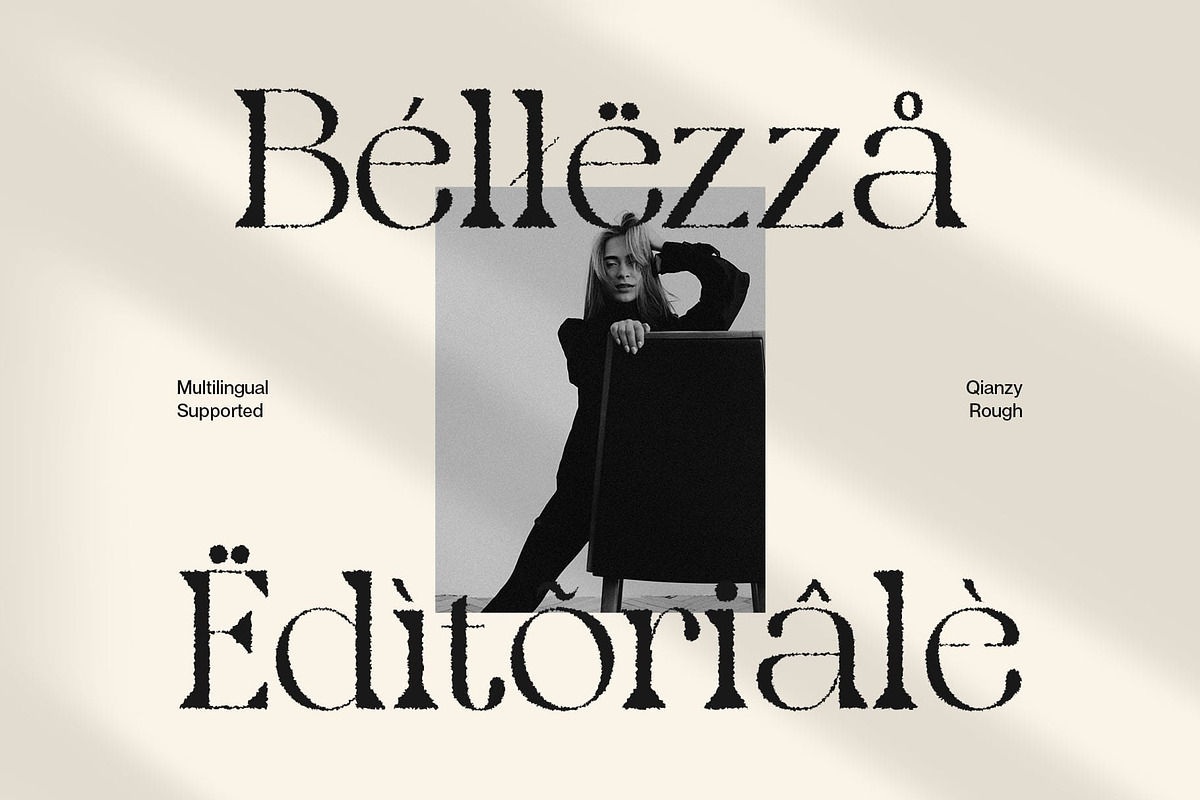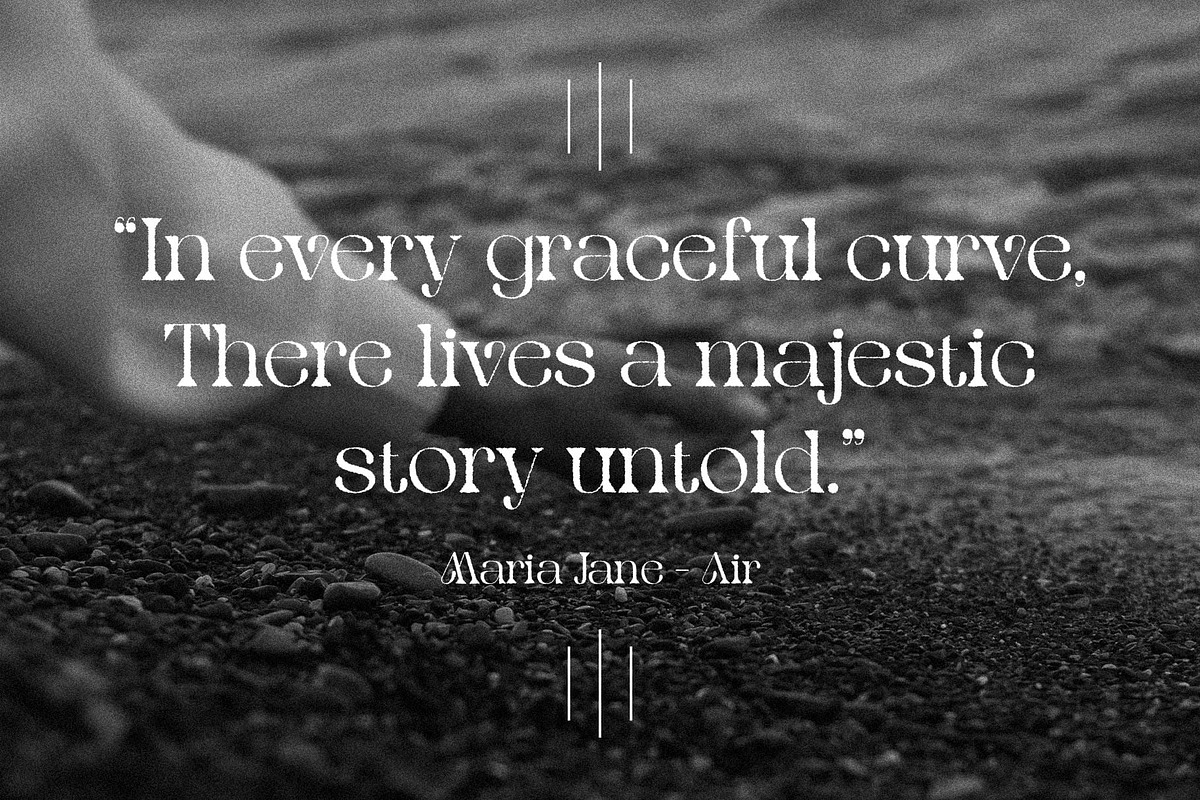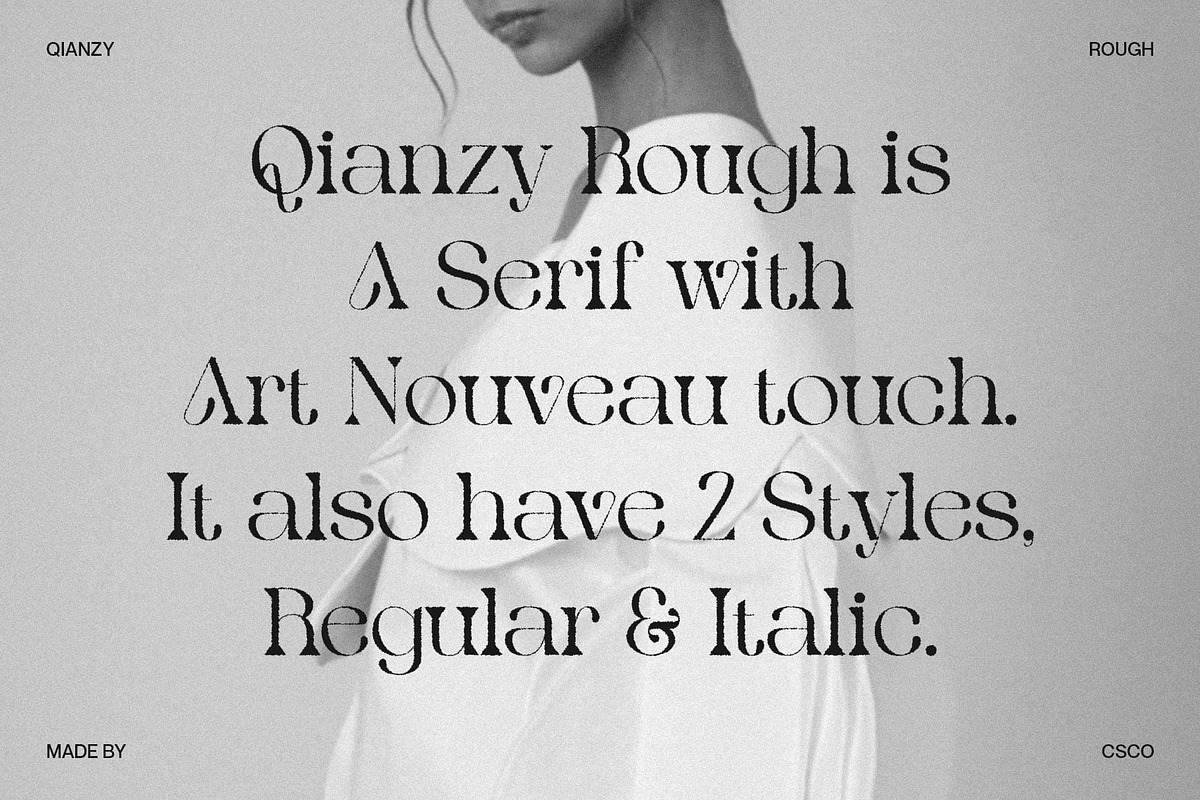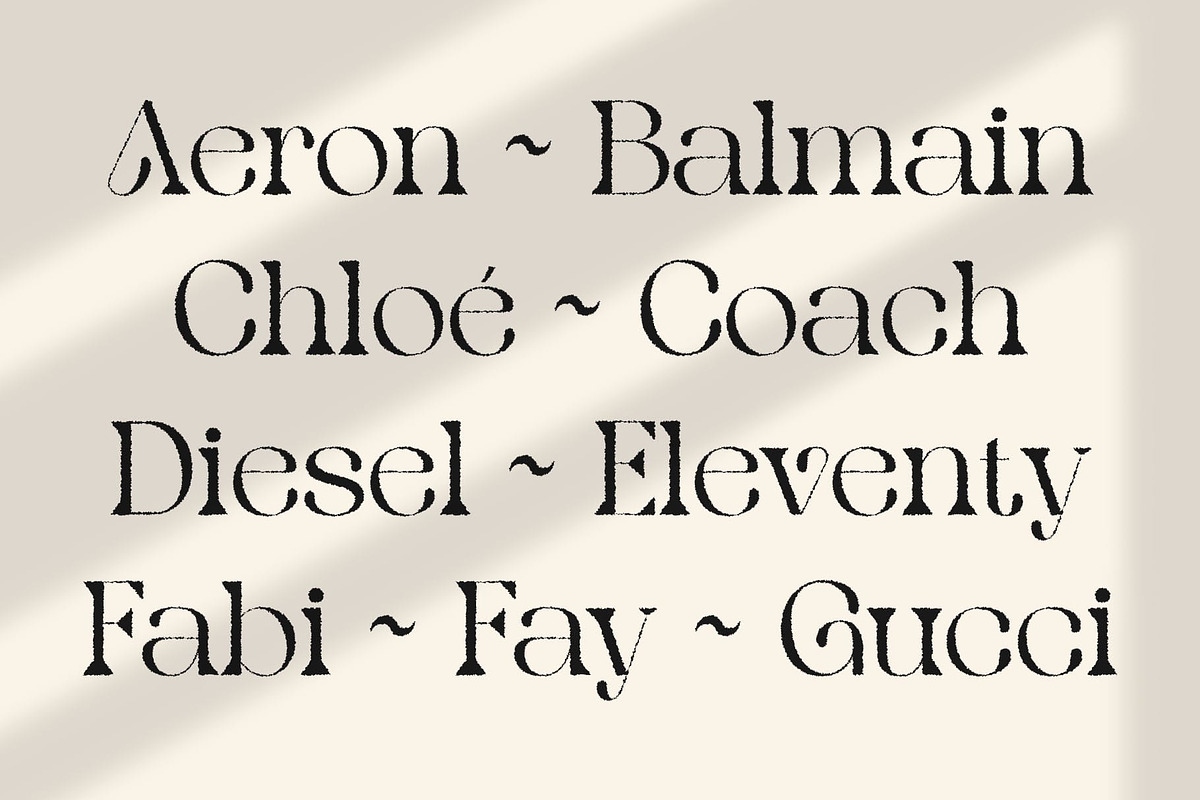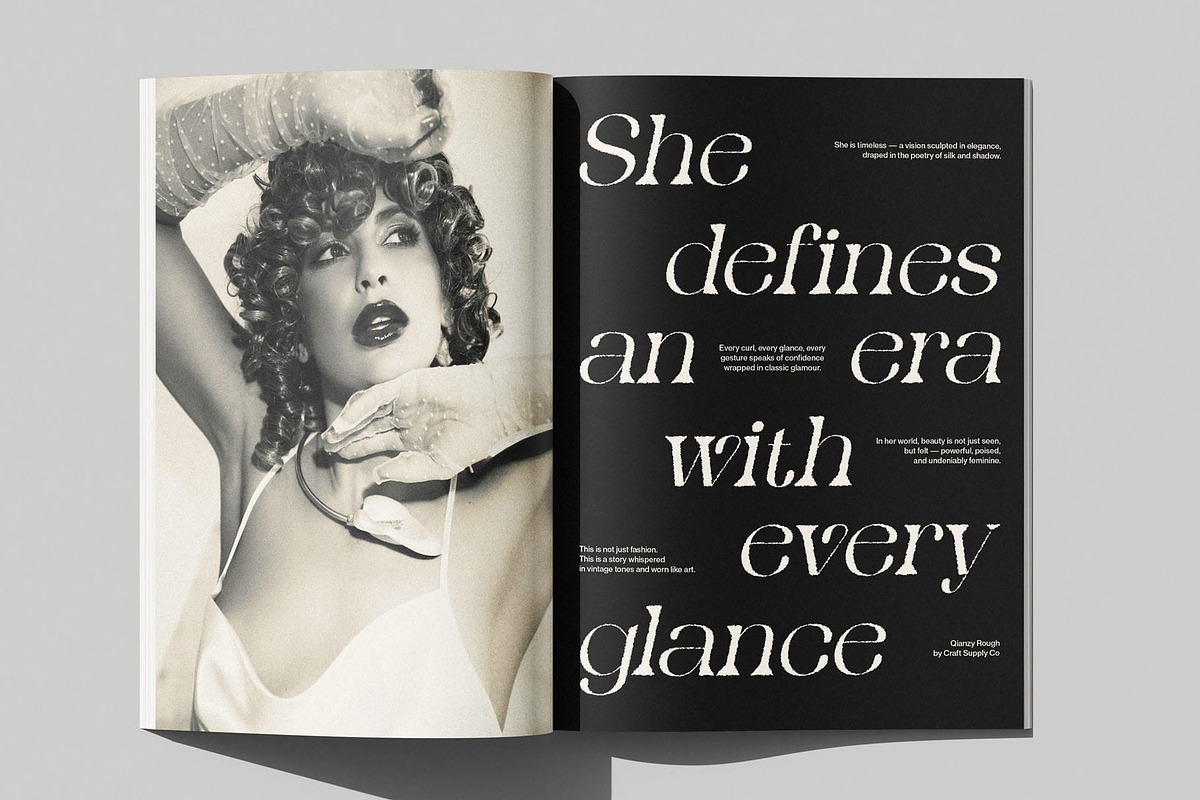
Qianzy Rough
Qianzy Rough Font – Artistic Elegance with Textured Character
Modern Serif with Art Nouveau Influence Qianzy Rough is a modern serif font inspired by the graceful curves and ornamental beauty of Art Nouveau. It features slender, flowing letterforms that combine minimalism with decorative elegance, creating a look that’s refined yet approachable.
Expressive Rough Texture for Unique Visual Appeal What sets Qianzy Rough apart is its distinctive rough effect, adding a tactile, handcrafted quality to each character. This textured finish introduces a subtle imperfection that feels authentic and artistic, infusing your typography with soul and personality. It’s the perfect choice when you want to convey a crafted, expressive identity within a clean, modern framework.
Perfect for Creative, Elegant Design Needs Whether you’re designing for luxury branding, fashion editorials, creative packaging, or aesthetic product labels, Qianzy Rough adapts beautifully across various applications. Its fusion of elegance and artistic detail makes it ideal for projects where style, emotion, and uniqueness are key. The font’s visual contrast and organic edges enhance layouts with a refined, boutique-like quality.
Timeless Charm with Contemporary Versatility Qianzy Rough offers more than just good looks—it provides flexibility. The font’s carefully structured forms maintain readability while standing out visually. Use it to bring a touch of timeless charm and modern artistry to anything from logo designs to social media graphics, event invitations, or book covers.